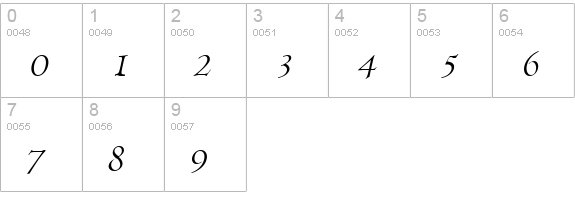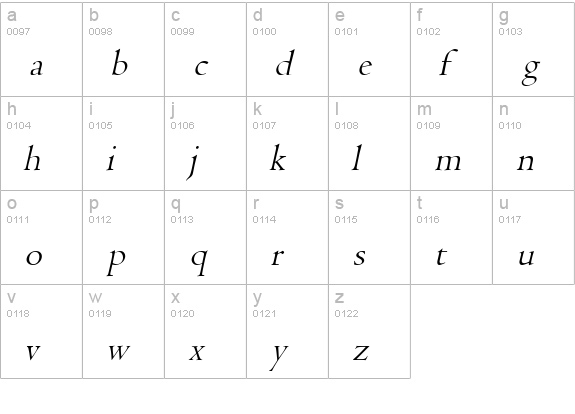
Viviene Italic Font Details
Viviene Italic is a distinctive, italic variant in the Viviene typeface family \xE2\x80\x94 well suited to design and typography projects.
Viviene Italic font is a stunning and elegant typeface that exudes sophistication and grace. Its delicate strokes and beautiful curves make it a perfect choice for projects that require a touch of finesse and refinement. With its slanted and italicized design, Viviene Italic adds a sense of movement and dynamism to any text or headline. This font is not only visually captivating but also versatile, making it suitable for a wide range of design purposes. Whether you need to create eye-catching logos, striking headings, or stylish invitations, Viviene Italic will effortlessly enhance your designs with its timeless appeal. What sets Viviene Italic apart is its availability as a free download on FontsMarket.com. This means that designers and creatives can easily access and utilize the font without any financial constraints. Its availability as a free resource allows for greater freedom and accessibility in design projects, making it an invaluable asset for both professionals and enthusiasts alike. So, if you're searching for a font that combines elegance, versatility, and the added bonus of being freely available, look no further than Viviene Italic. Download it today from FontsMarket.com and let your creativity soar to new heights.